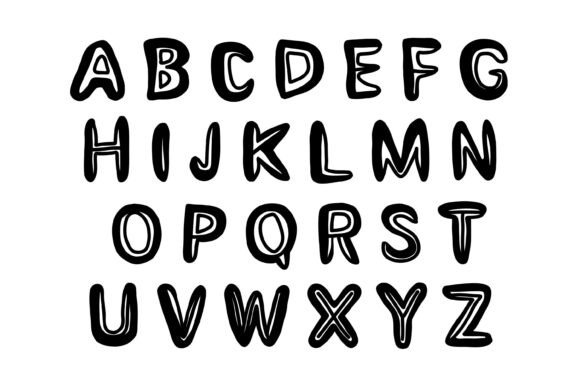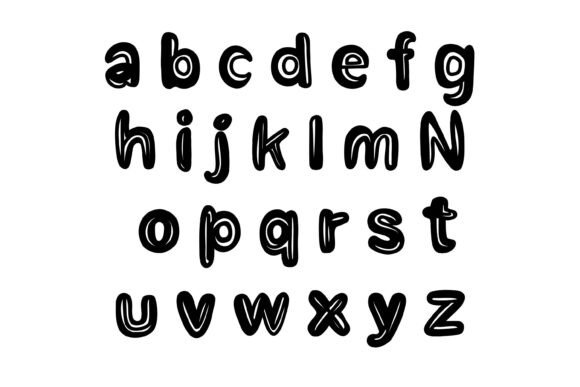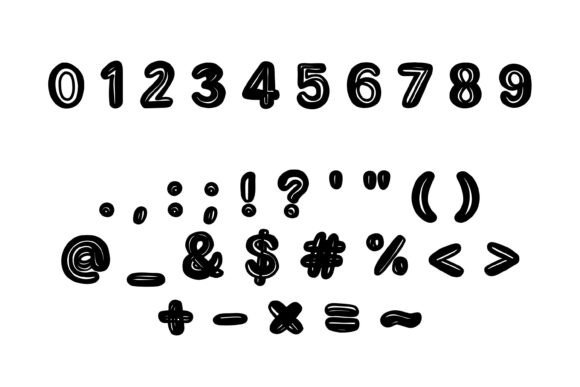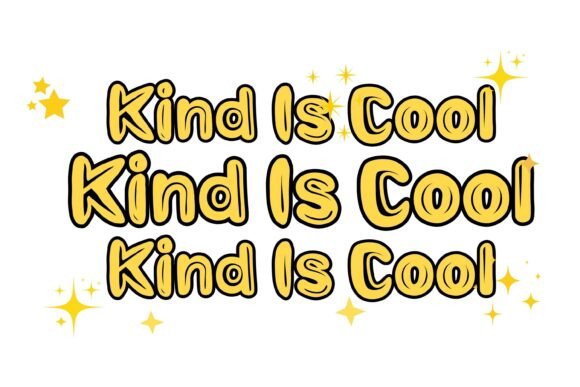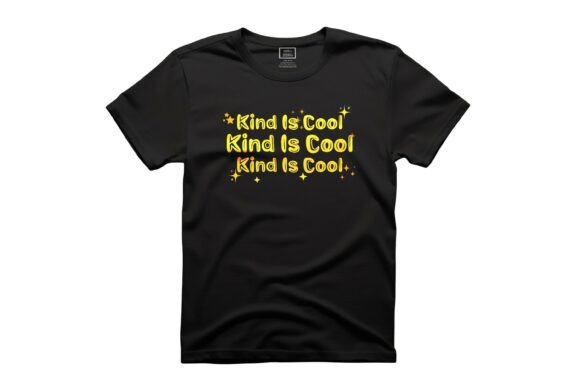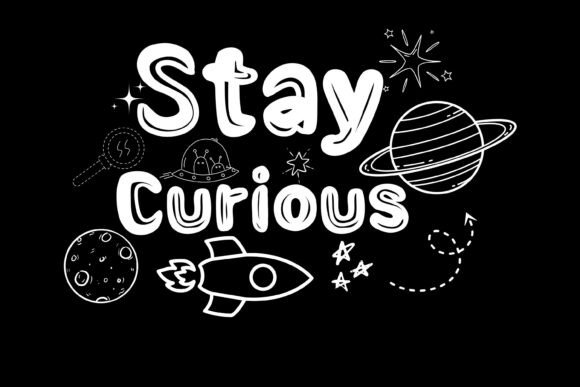
Introduction to Dreamsketch Bold Font
DreamSketch Bold is a chunky, hand-drawn bubble display font with a cute cartoon vibe—perfect for kids’ logos, classroom printables, stickers, party invites, thumbnails, and crafty Cricut/Silhouette projects.
* 🎨 **Look & feel:** bold bubbly outlines, doodle handwriting, high-impact display style that reads great on stickers, tees, posters, and thumbnails * 🧒 **Great for:** kids branding, birthday invites, classroom decor, kawaii stickers, packaging, YouTube covers, party signage.
Key Features of Dreamsketch Bold Font